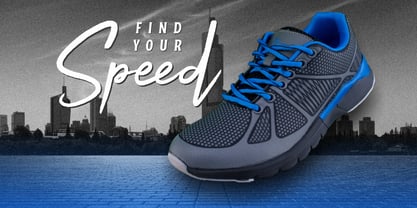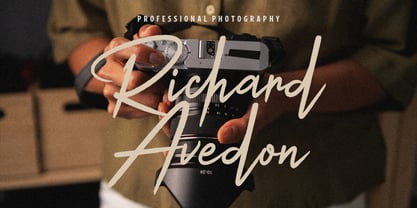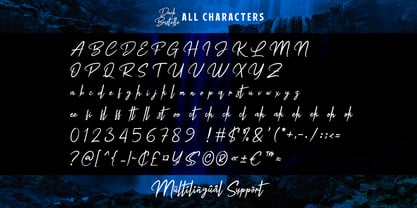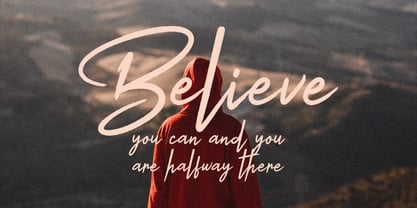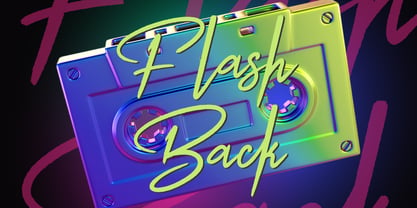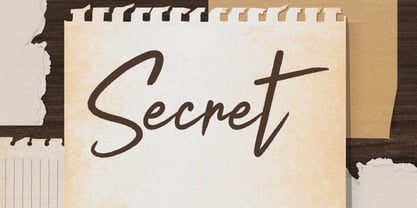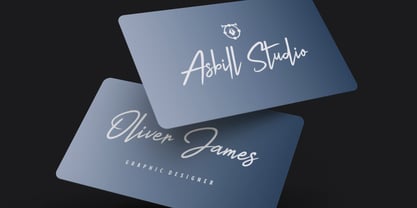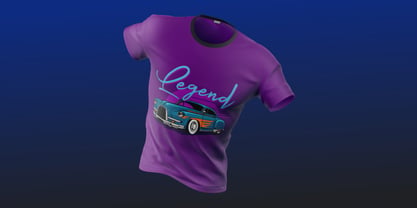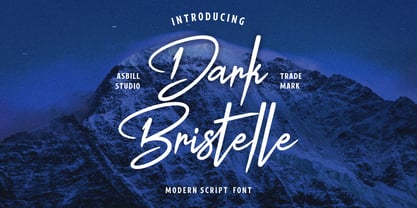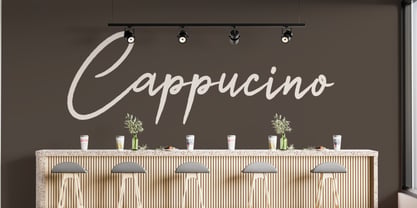
Dark Bristelle
Dark Bristelle is a modern script font that combines expressive handwritten strokes with a bold, elegant, and contemporary character. Designed with fluid curves, dynamic letterforms, and natural brush-inspired details, this typeface brings a strong sense of personality and artistic energy to every design.
Its stylish appearance makes Dark Bristelle perfect for creating eye-catching logos, branding identities, product packaging, fashion editorials, photography projects, social media graphics, posters, invitations, and premium promotional designs. The smooth flow and distinctive handcrafted style allow your typography to feel both personal and professionally refined.
Whether used as a striking headline or a signature-style focal point, Dark Bristelle delivers a confident visual presence with a modern creative edge. It is a versatile script font made for designers who want to transform ordinary text into expressive and memorable artwork.
Let your designs speak with confidence, movement, and unmistakable style — with Dark Bristelle.